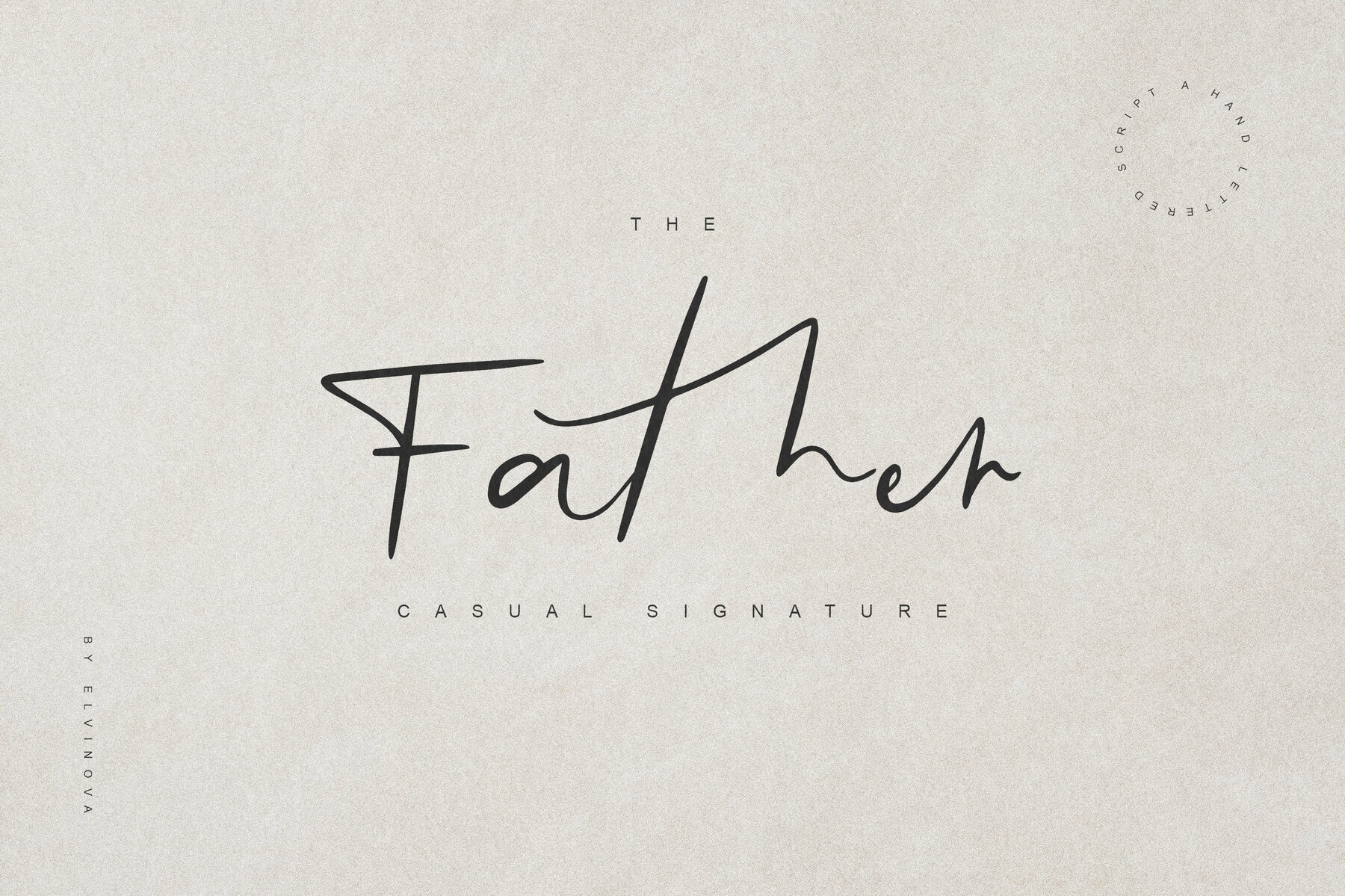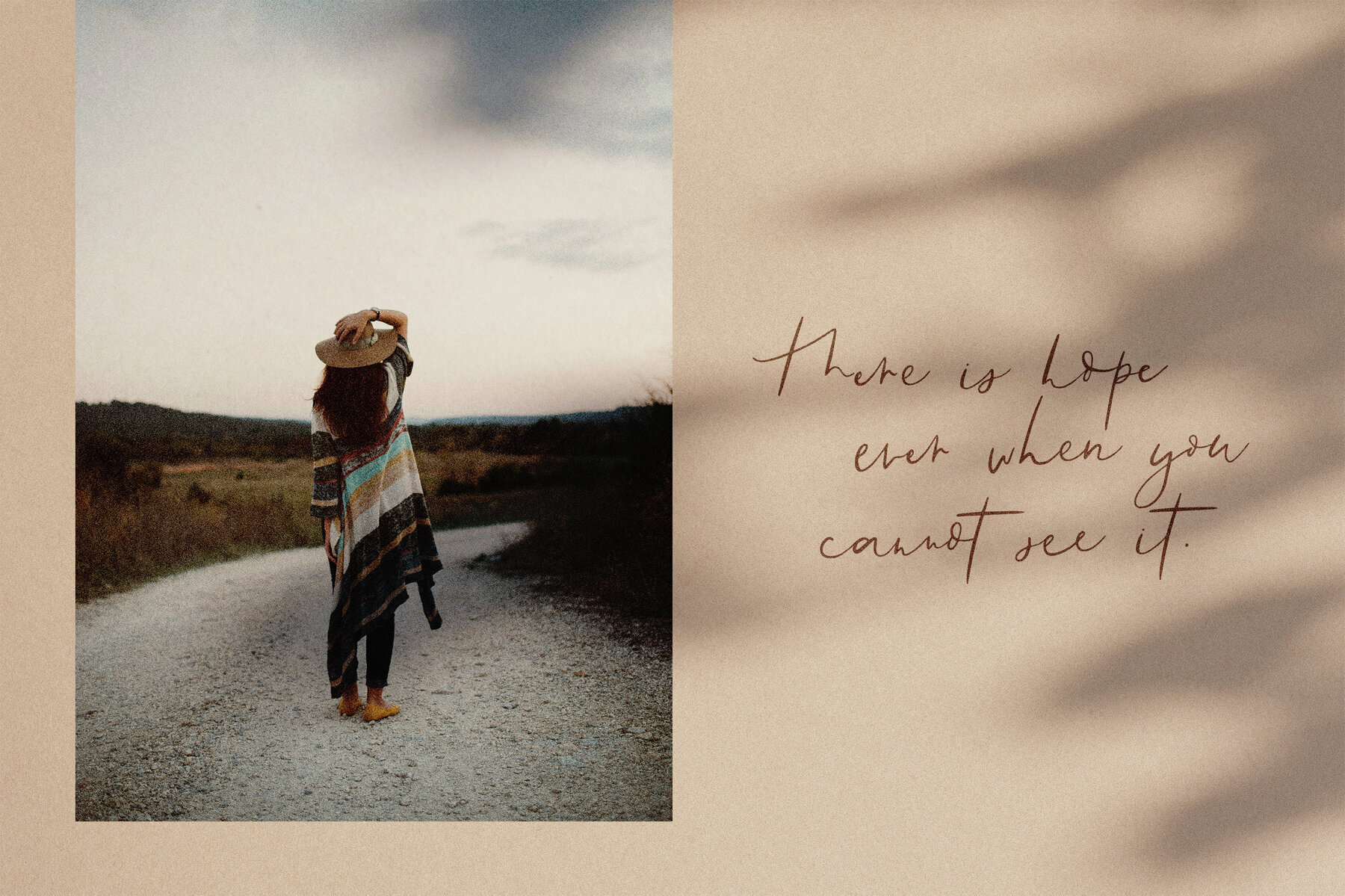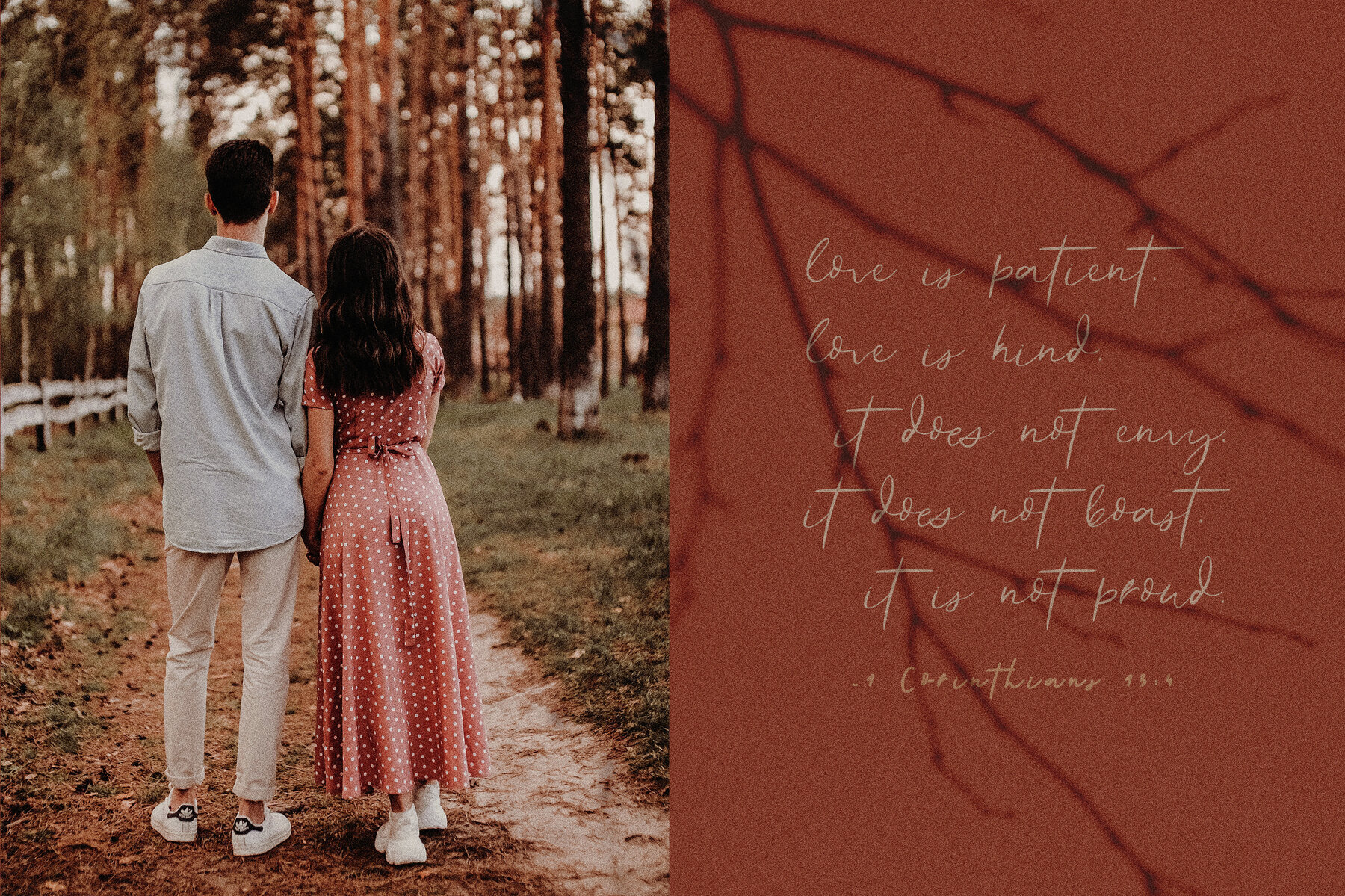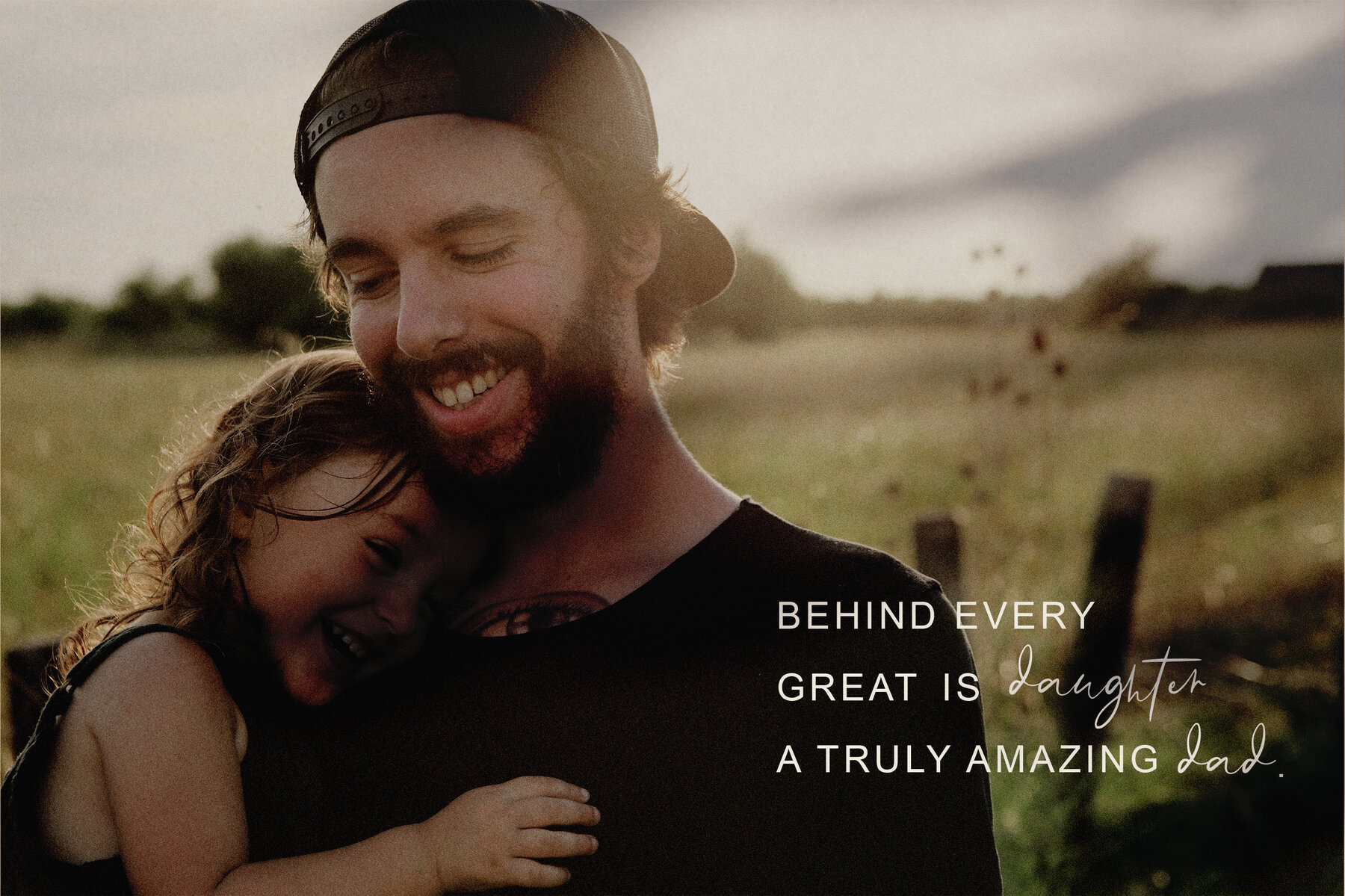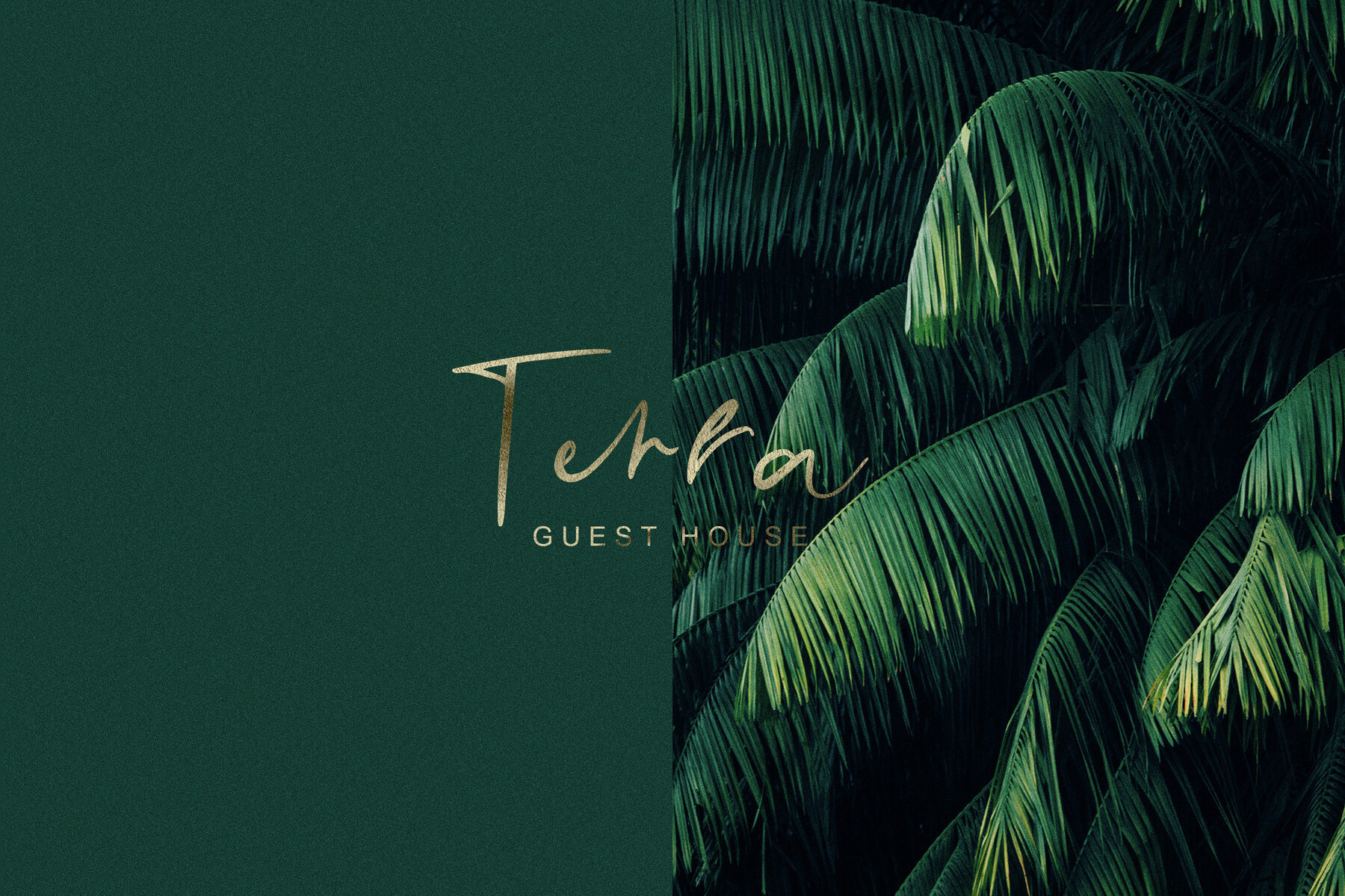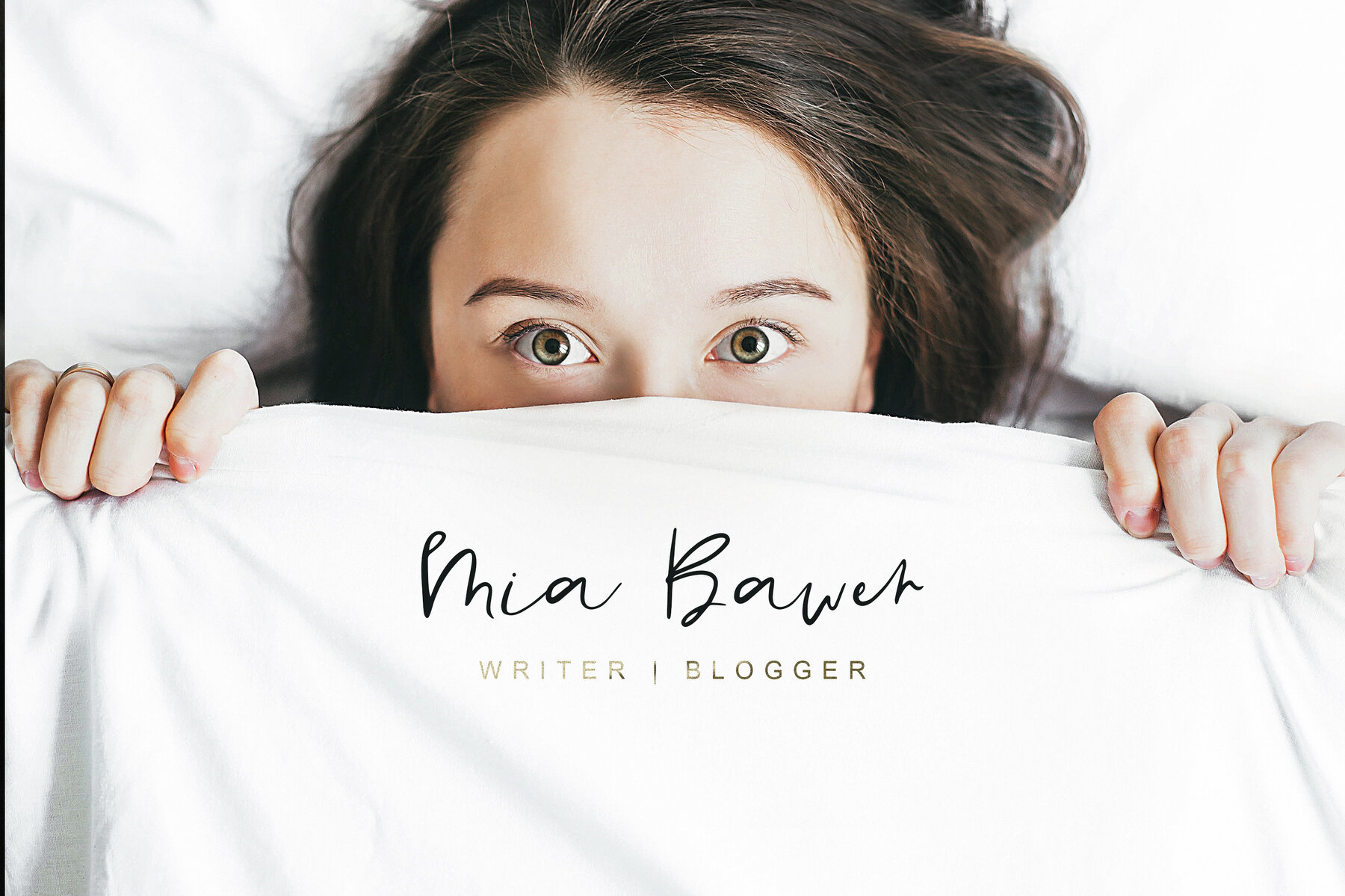
Father Font
Father Regular
This script font exudes a handwritten, cursive style that is both elegant and organic. Ideal for design projects requiring a personal touch, such as wedding invitations, fashion branding, or artistic endeavors. Its flowing and dynamic appearance makes it perfect for creating stylish and modern designs that demand attention.